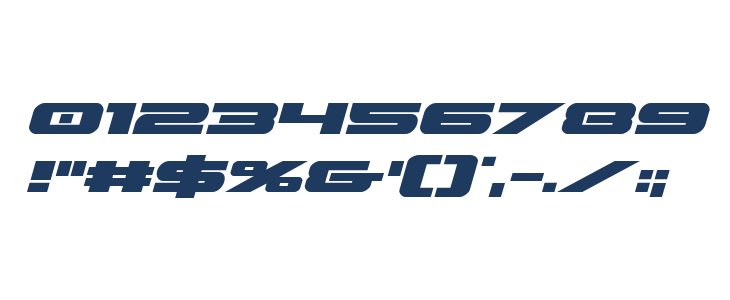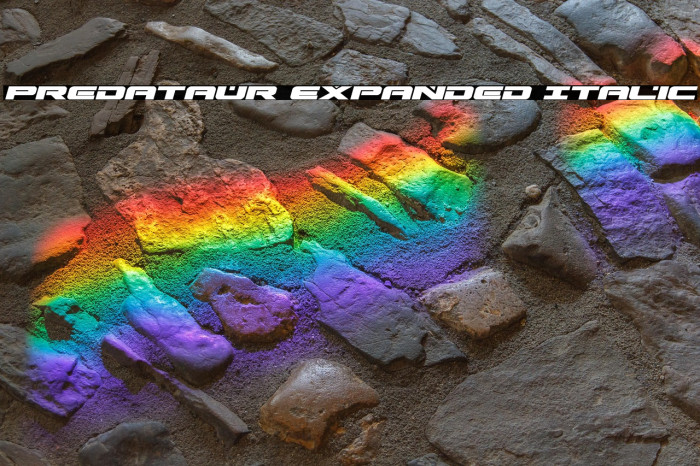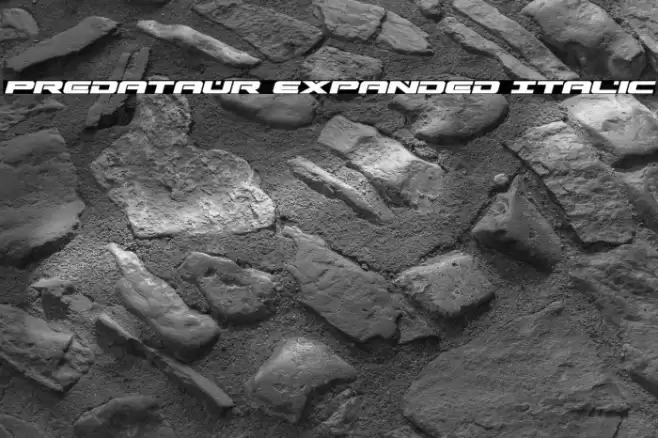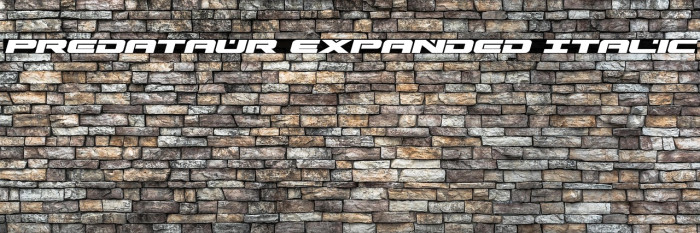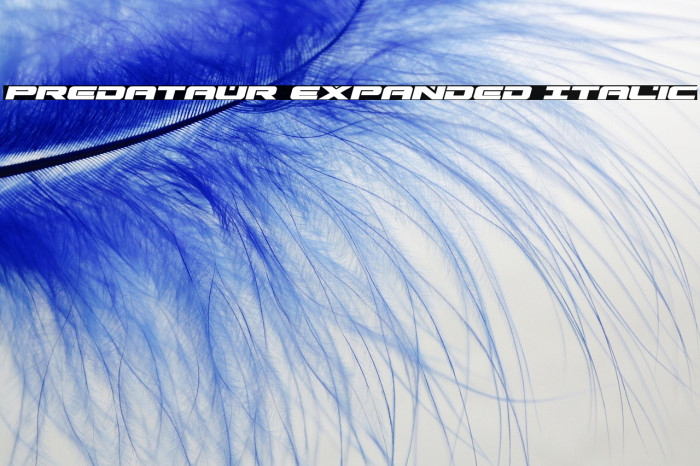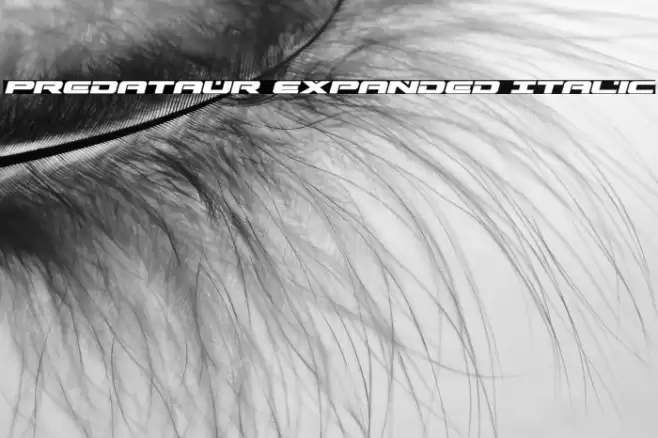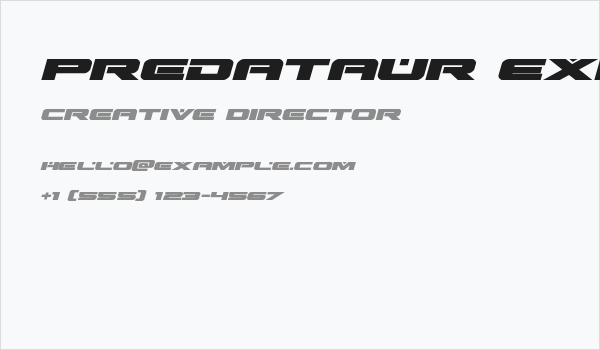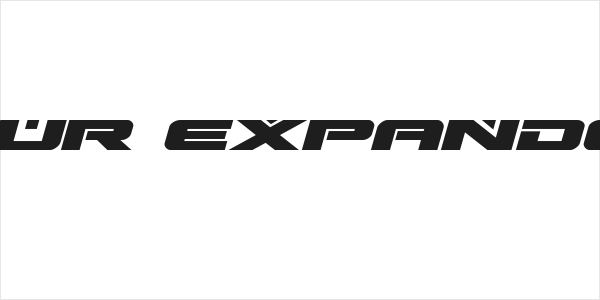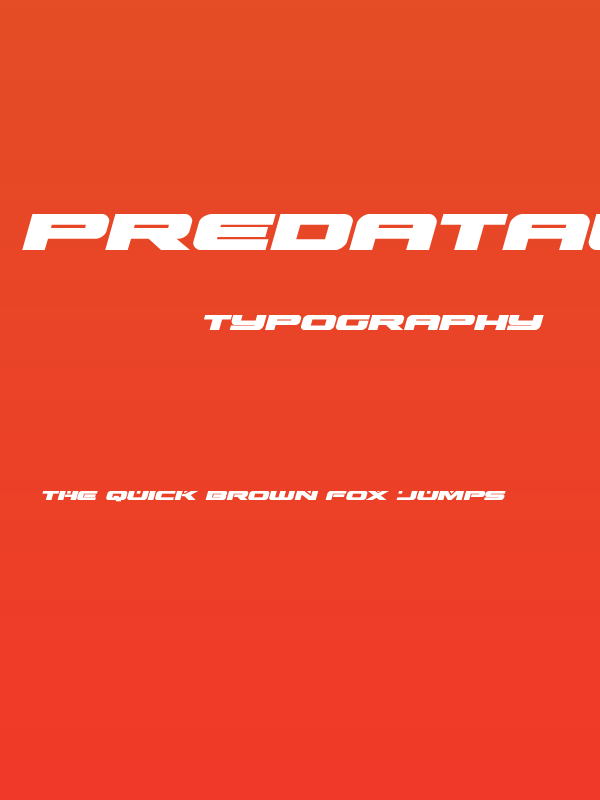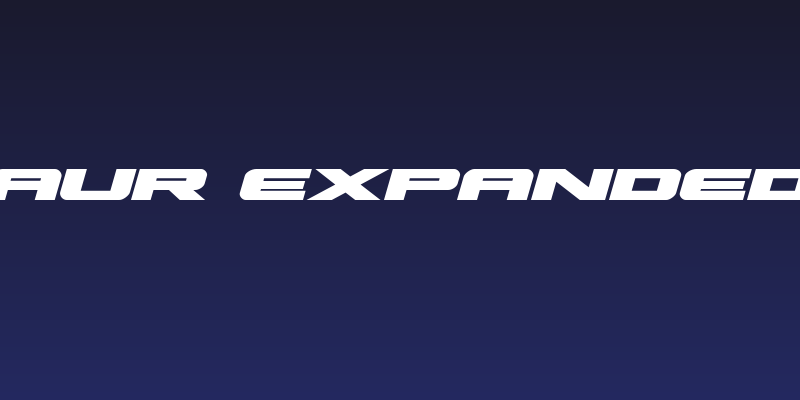
Predataur Expanded Italic Font
Predataur Expanded Italic Description
This font features a bold and dynamic design with an expanded and italicized style. The characters are wide and have a futuristic, angular appearance, making them stand out with a strong presence. The uppercase and lowercase letters maintain a consistent style, with sharp edges and a slight slant that adds to the italic effect. The numbers and special characters follow the same design principles, ensuring uniformity across all elements. The font's expanded width gives it a commanding look, suitable for attention-grabbing applications.
Proposed ProjectsIdeal for sci-fi themed projects, video game titles, technology branding, and dynamic posters.